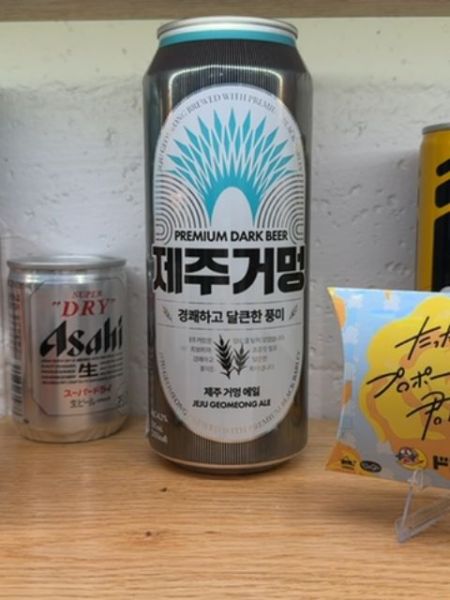
Jeju Geomun Ale
A premium dark beer crafted on Jeju Island, known for its rich and mild taste.
South Korea
The typography uses bold and modern sans-serif fonts for the Korean text, conveying a sense of strength and clarity. The English text uses a more classic serif typeface, providing contrast and elegance, while the use of varying weights creates a visual hierarchy that guides the viewer's attention.
The can features a modern design with a prominent teal-colored emblem along with silver and black accents. Its tall, sleek shape is complemented by a blend of Korean and English text, making it visually appealing and easy to identify.
- Brewed with special ingredients from Jeju Island.
- Known for its unique flavor profile.
- Combines traditional brewing methods with modern techniques.